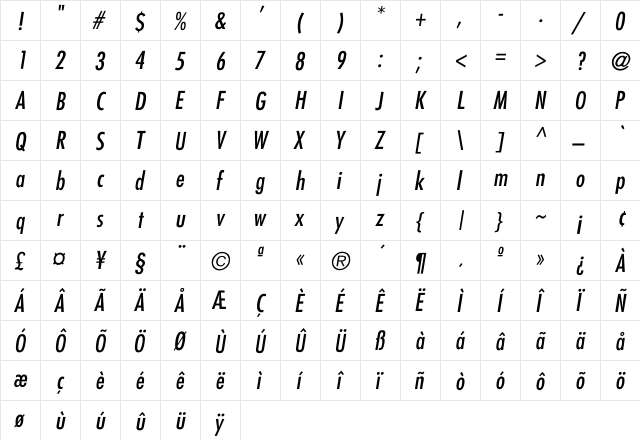
Silverleaf Cond Italic Regular
Design Context for Silverleaf Cond Italic Typeface
Silverleaf Cond Italic is a composed and adaptable typeface that performs quietly and consistently across a wide range of design contexts. The dynamic lean of this cut emphasises speed and emphasis in any layout. The condensed width makes it efficient for tight spaces without sacrificing legibility.
Pro Tip: Use Silverleaf Cond Italic for emphasis, pull quotes, and subheadings where its slanted energy can add rhythm to the layout.